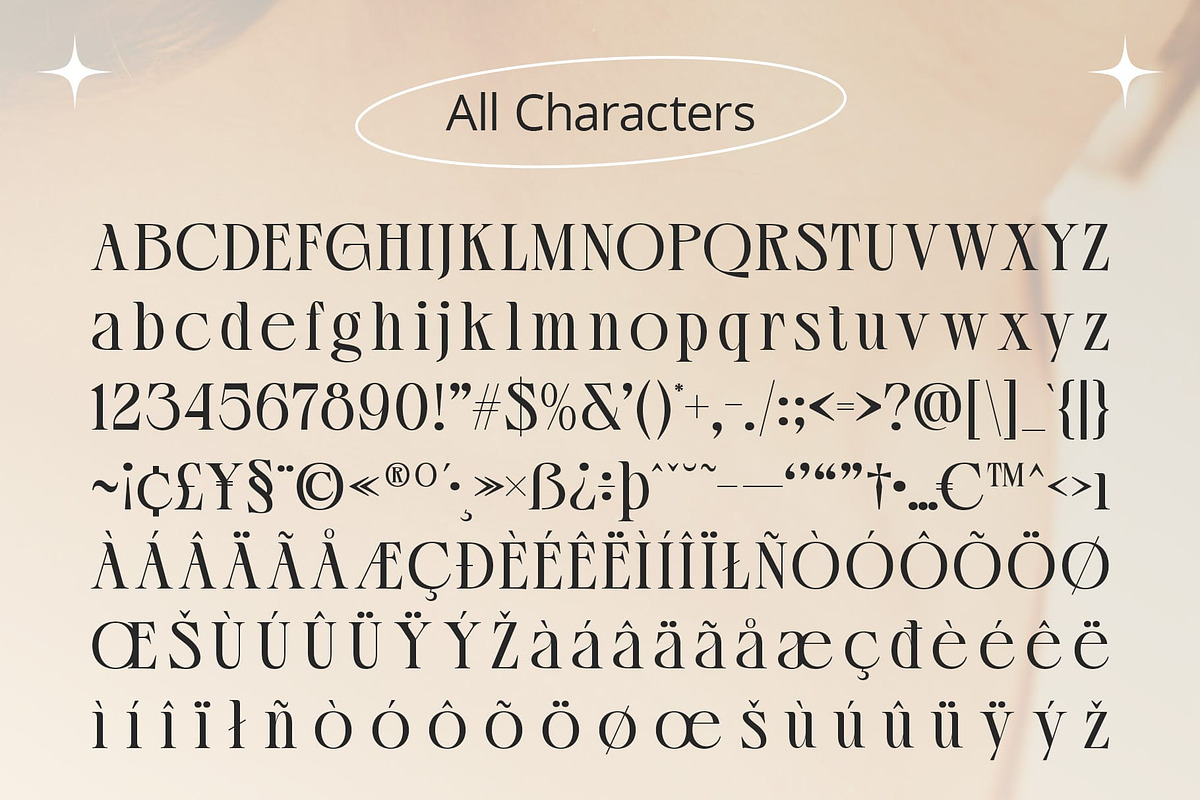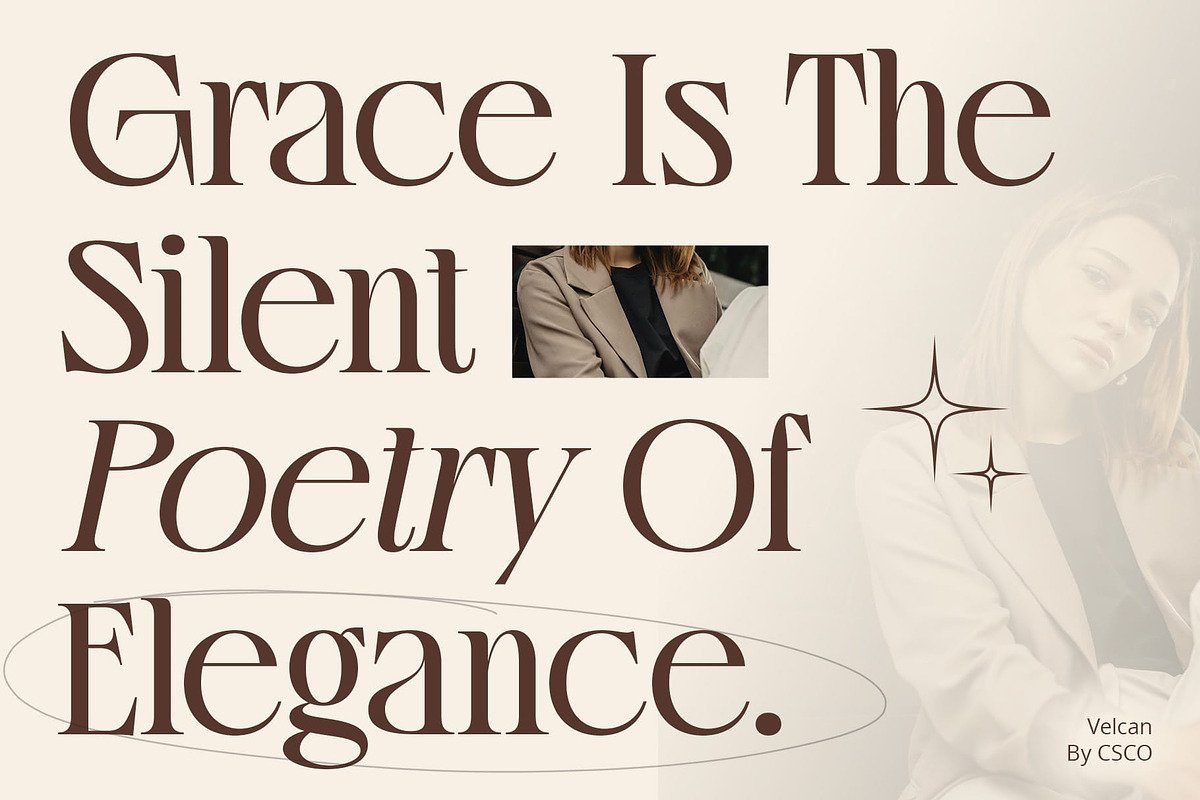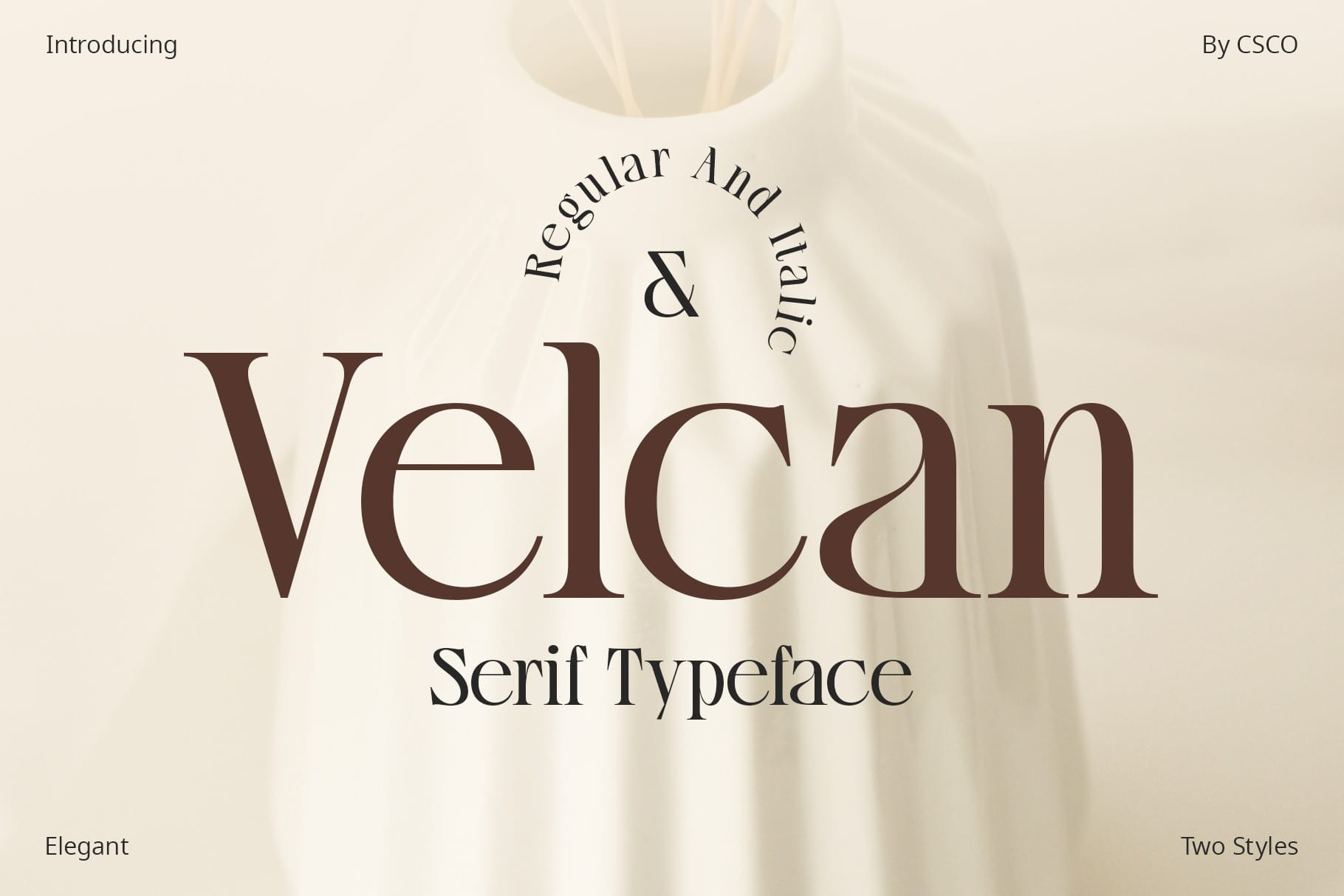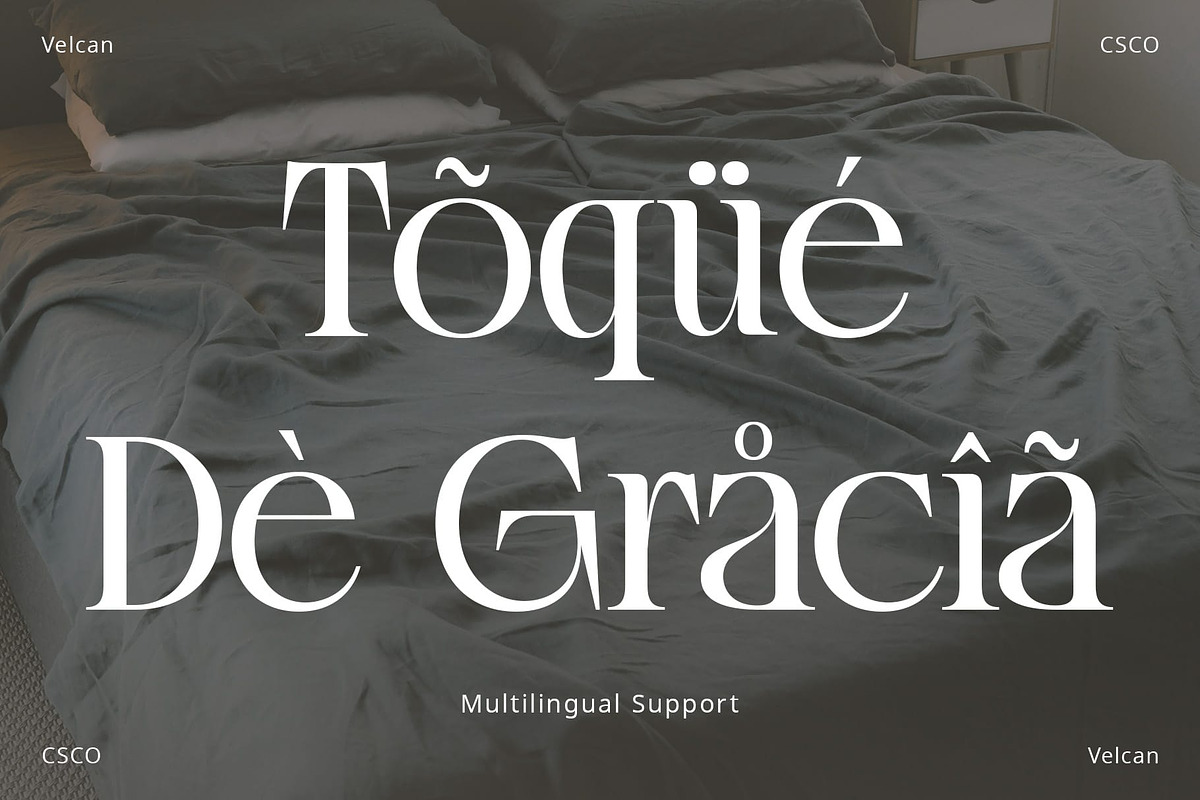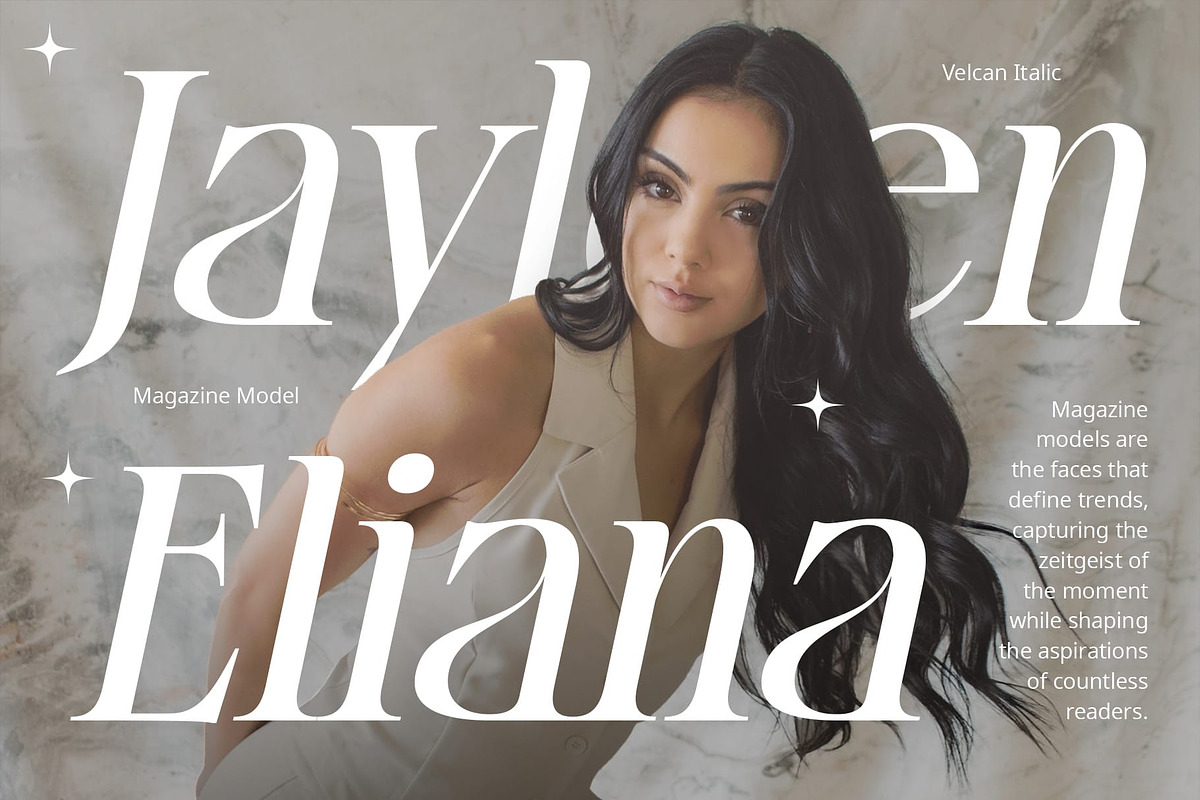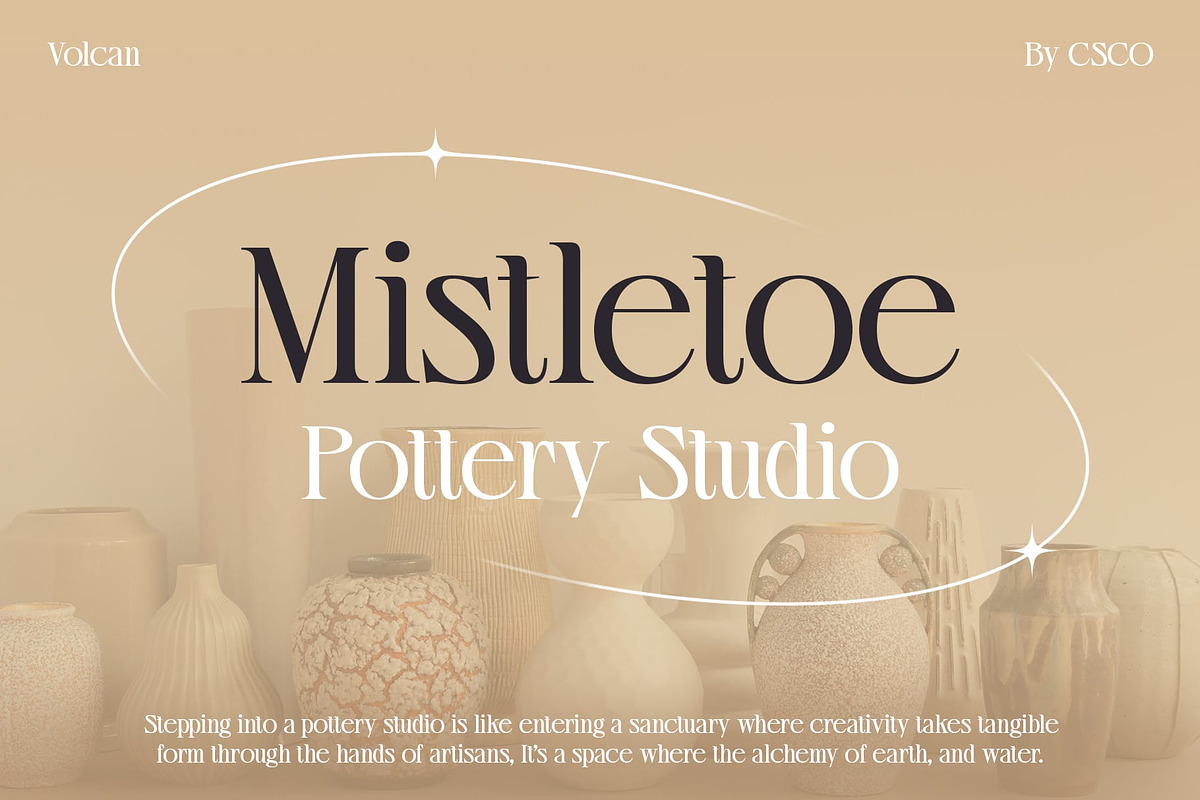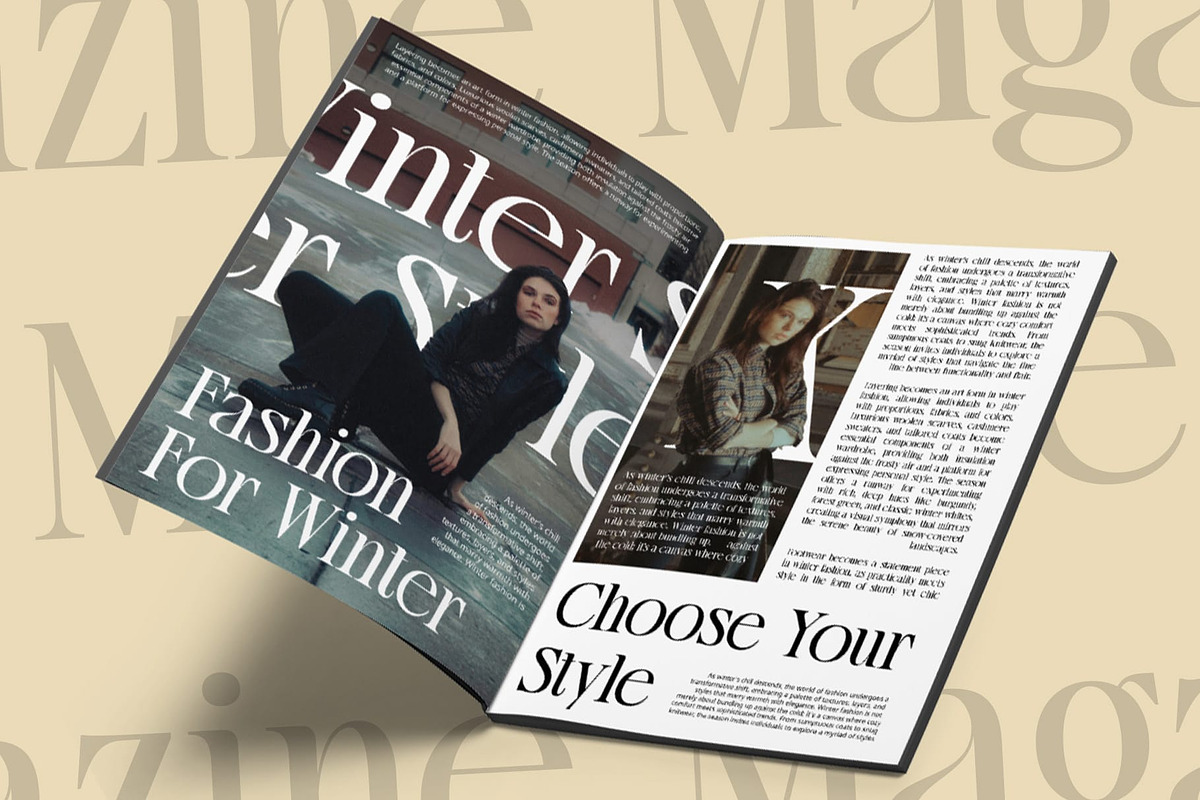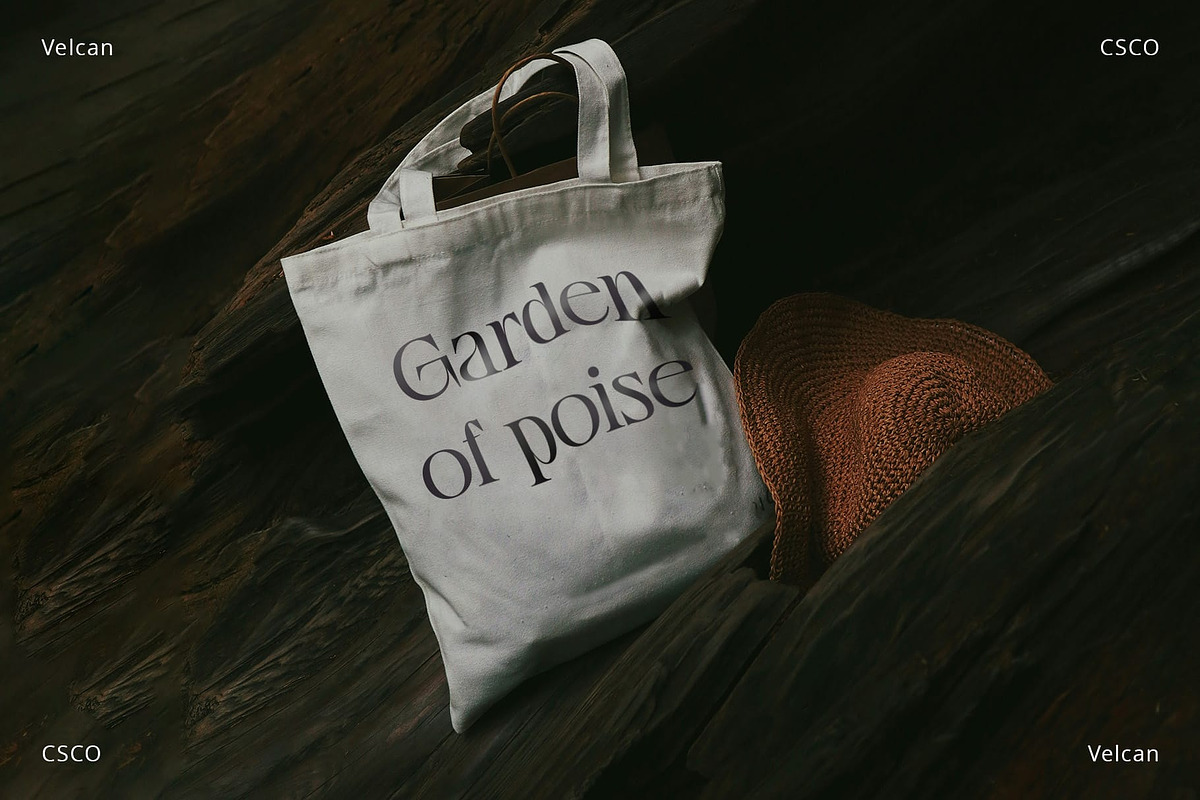
Velcan – Serif Typeface
Velcan: Where Elegance Meets High Contrast
Captivating Elegance Velcan, a serif typeface, beckons with its captivating elegance, a dance of curves and serifs that add a touch of sophistication to your designs.
Defined by High Contrast What sets Velcan apart is its high contrast, where the interplay between thick and thin strokes becomes a visual symphony. Each letter is a masterpiece, meticulously crafted to deliver a timeless aesthetic.
Versatility Unveiled Velcan transcends traditional boundaries, proving its versatility. Whether in print or on-screen, its high contrast ensures legibility and impact, making it suitable for diverse design applications.
Elevate Your Design Embrace the essence of Velcan to elevate your projects. From editorial layouts to branding, the high-contrast serif brings an air of refinement that resonates with classic elegance.
In Conclusion Velcan, the epitome of sophistication, marries elegance with high contrast, creating a visual language that speaks volumes in every design. Let Velcan be the silent narrator of your refined and stylish creations.